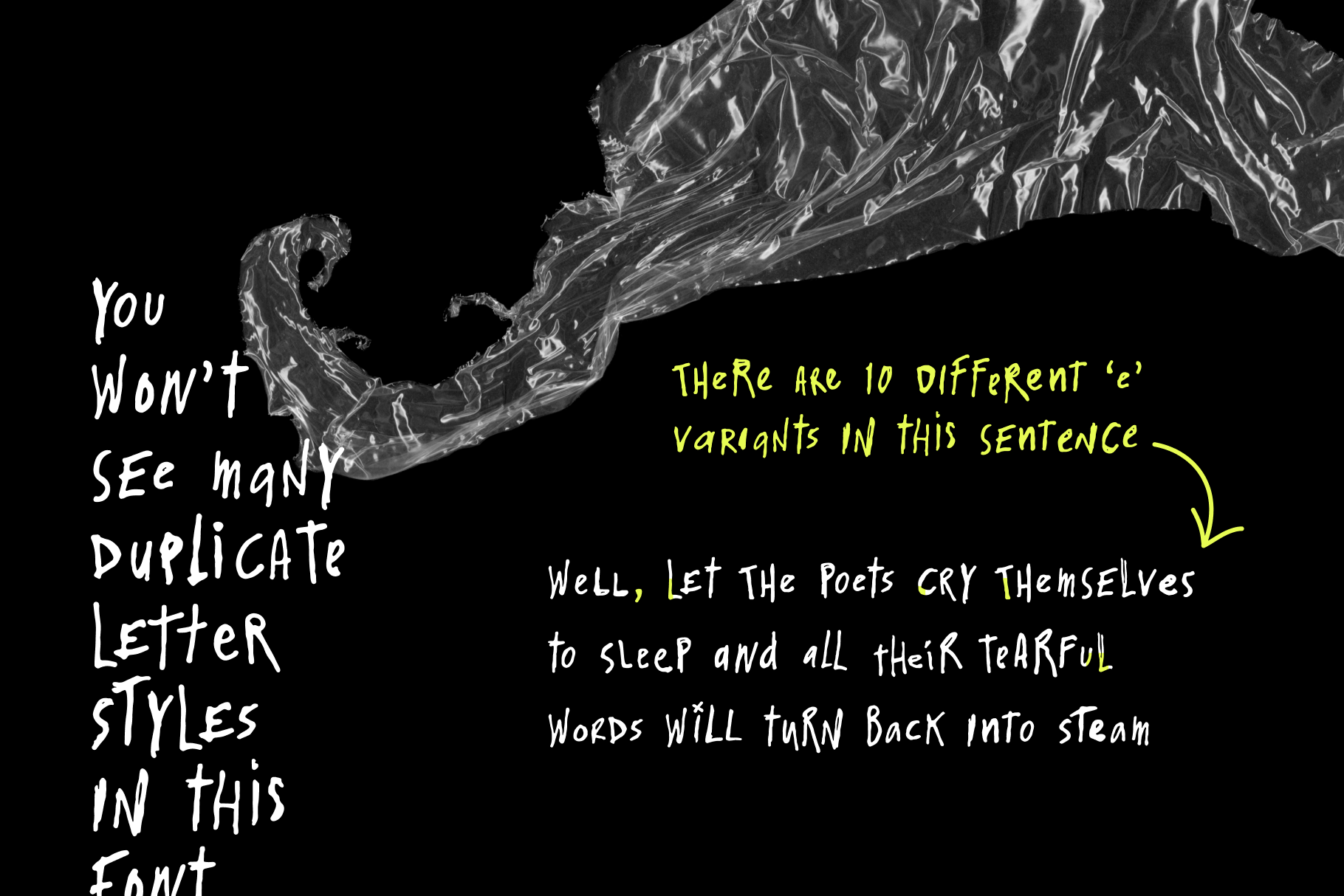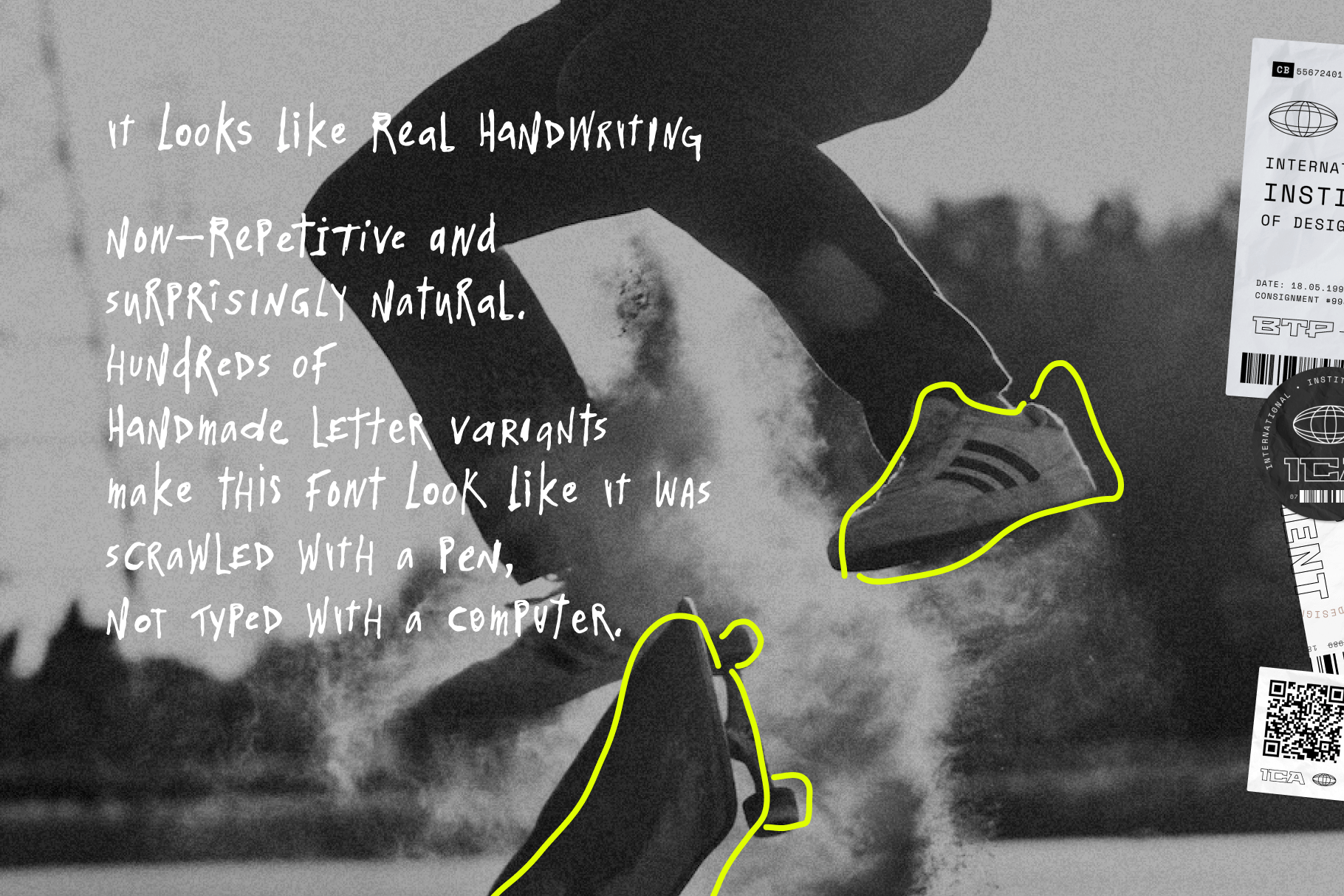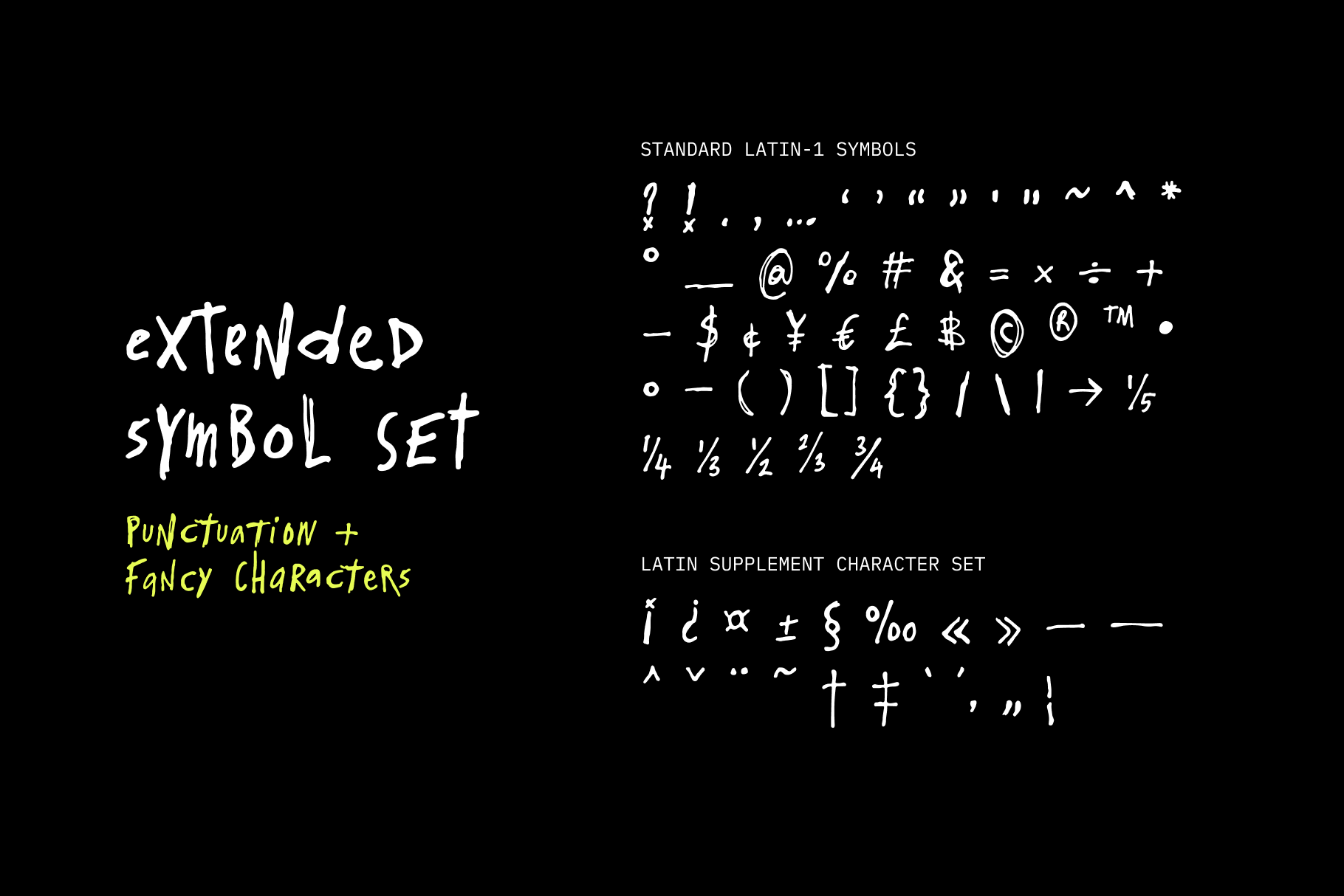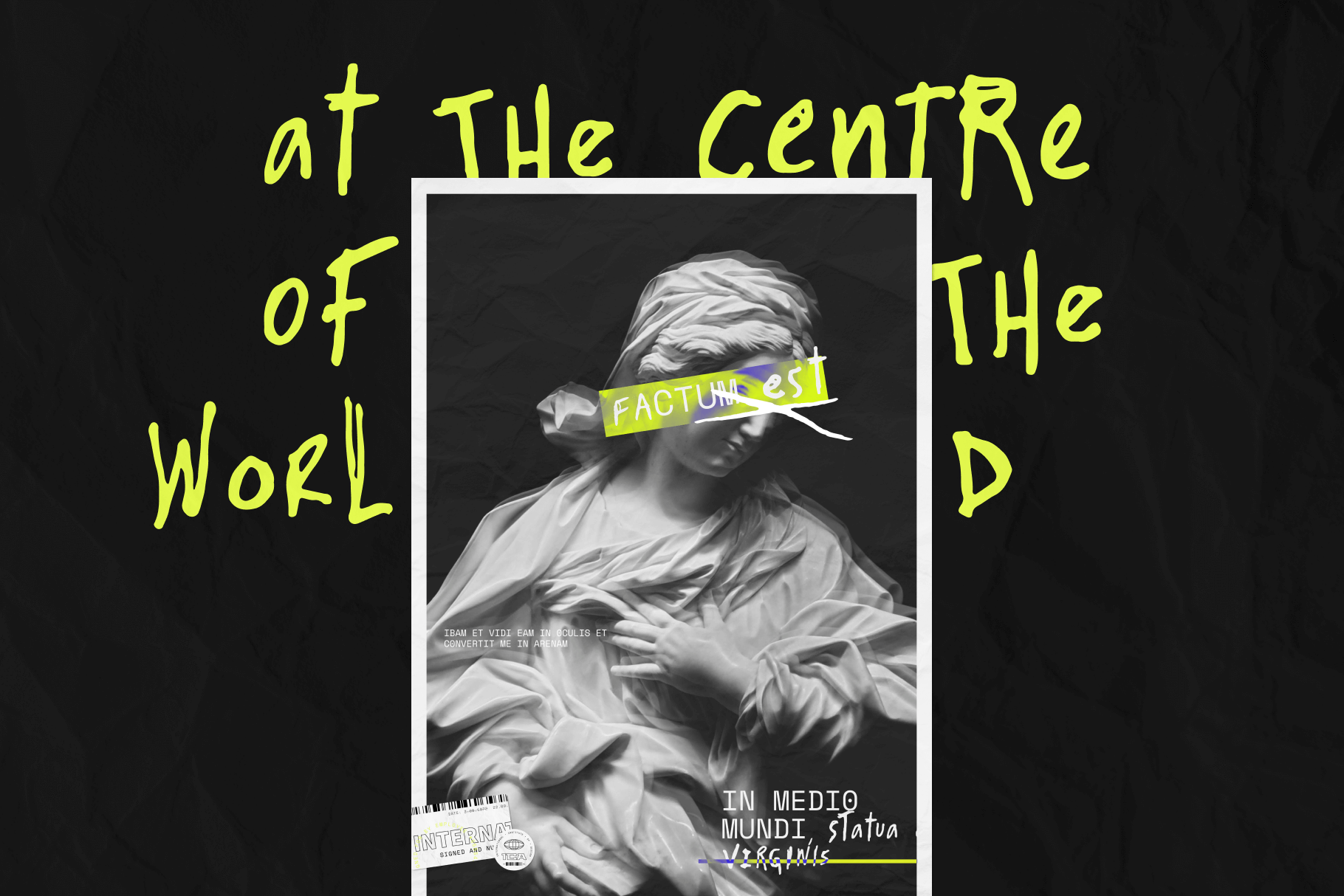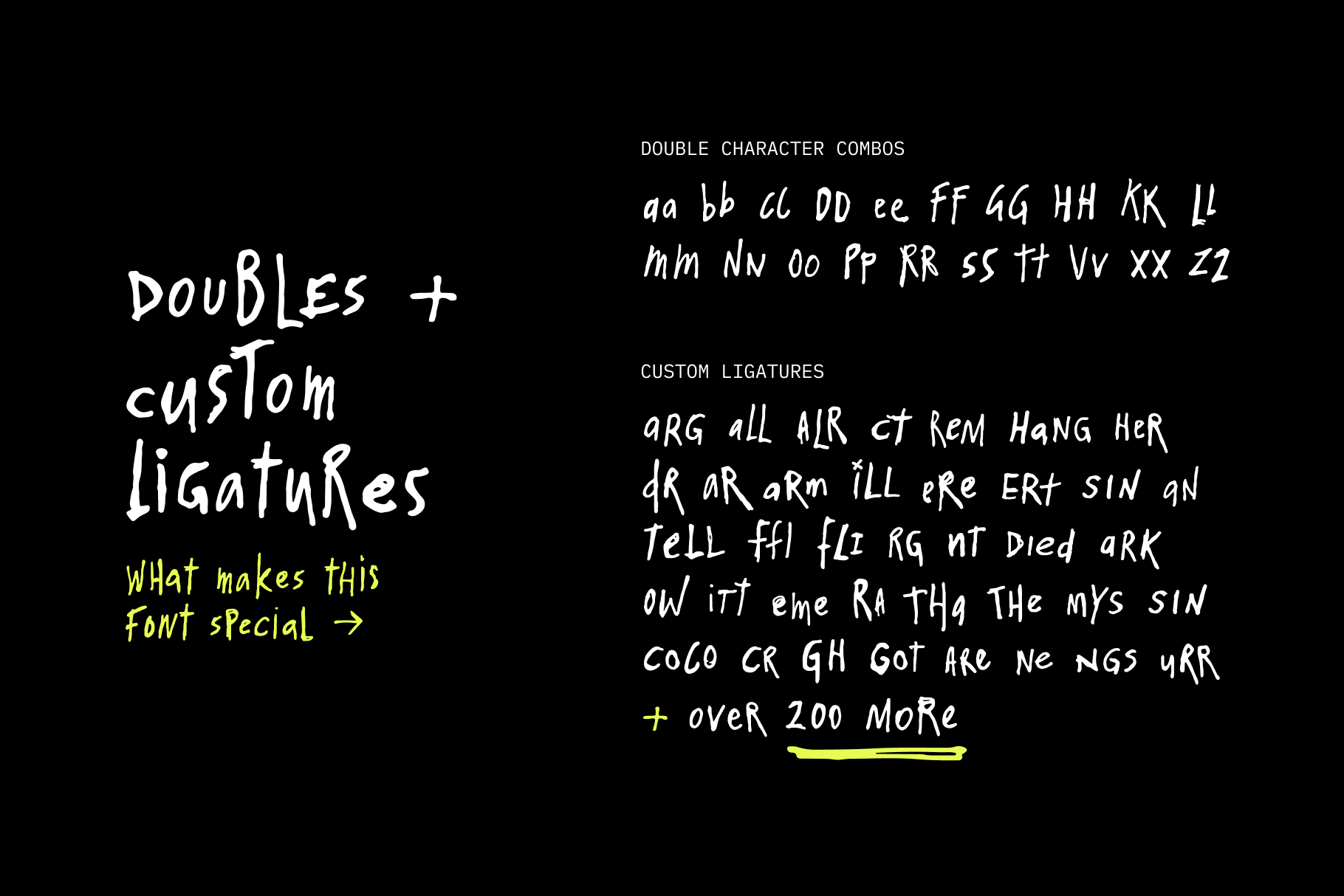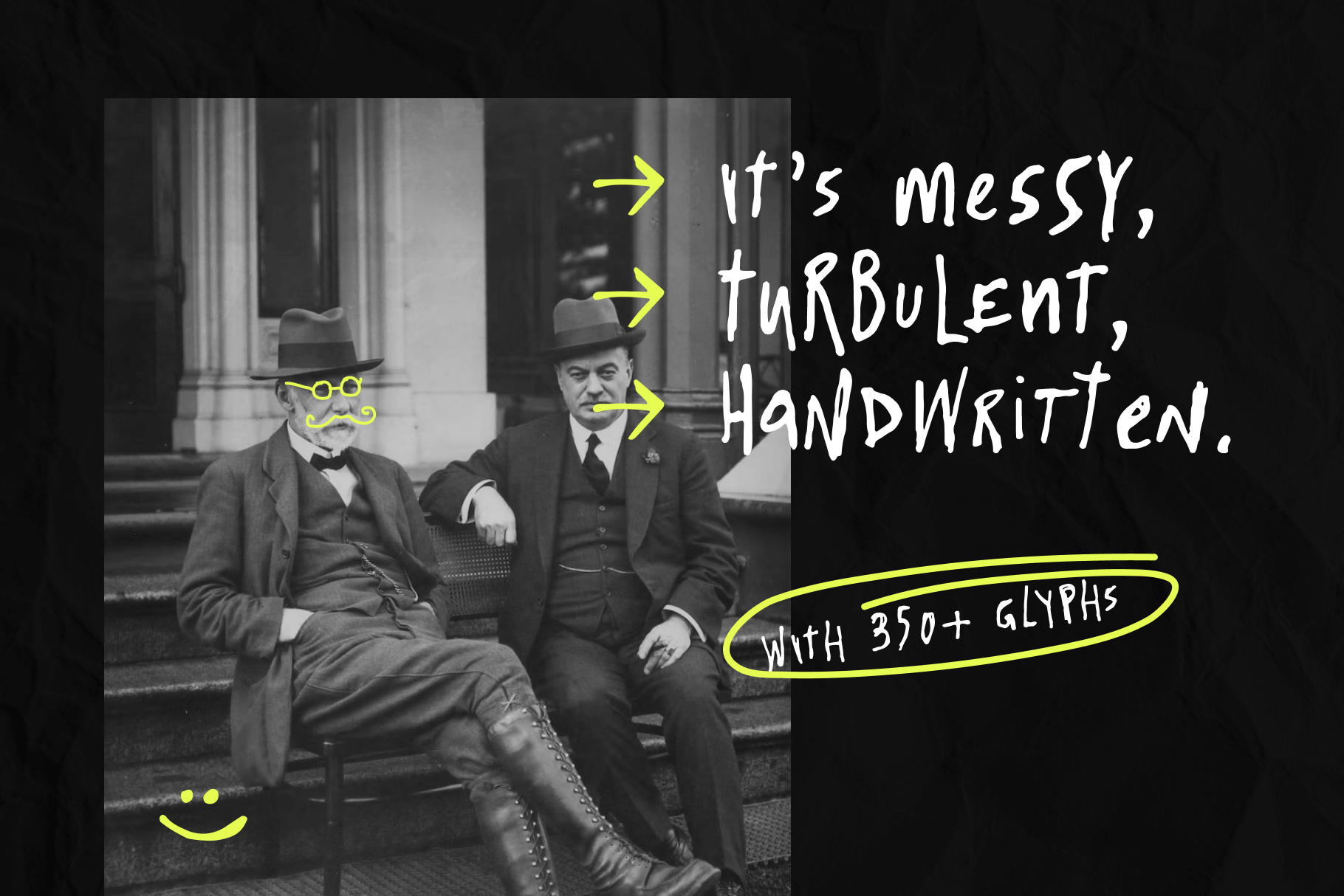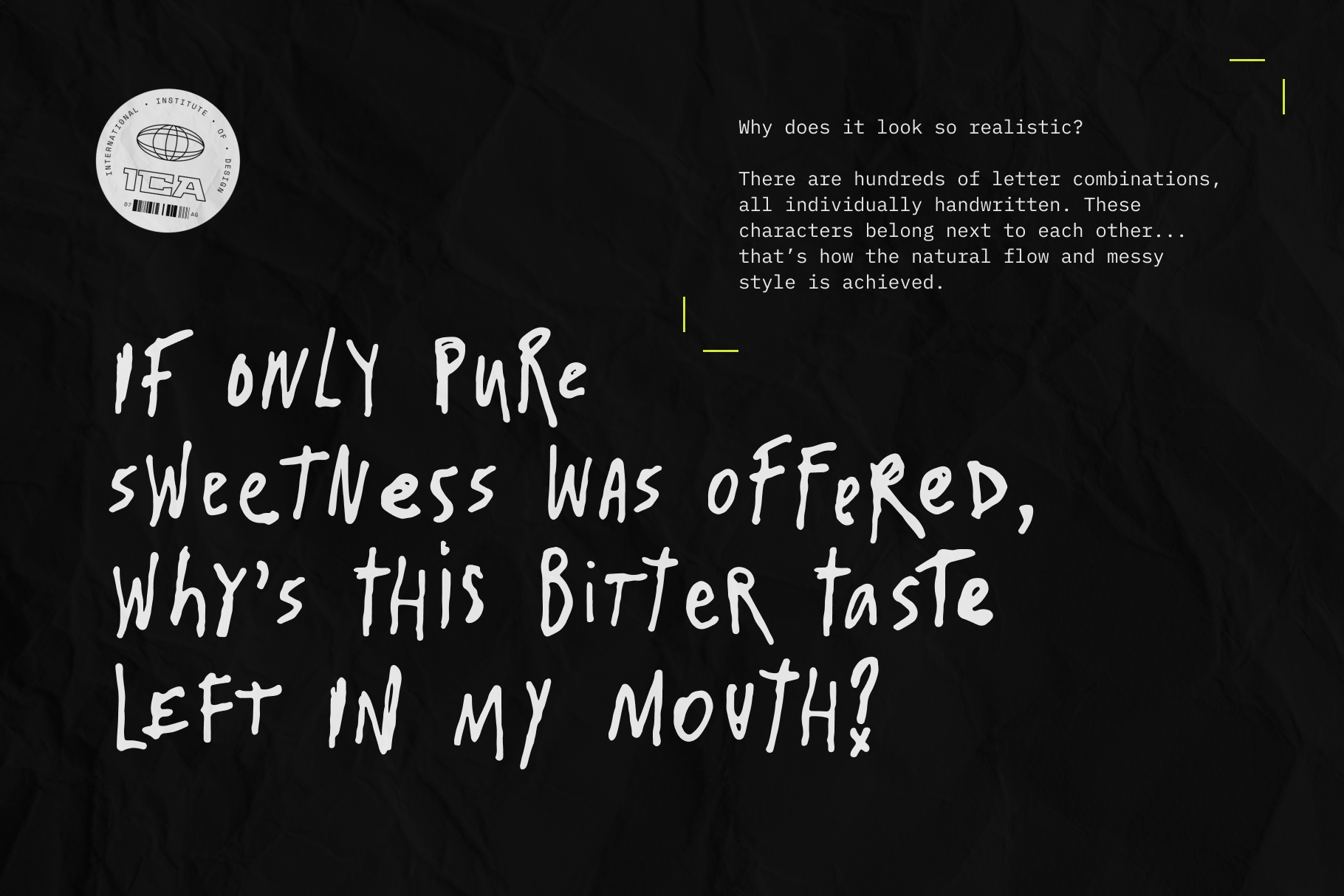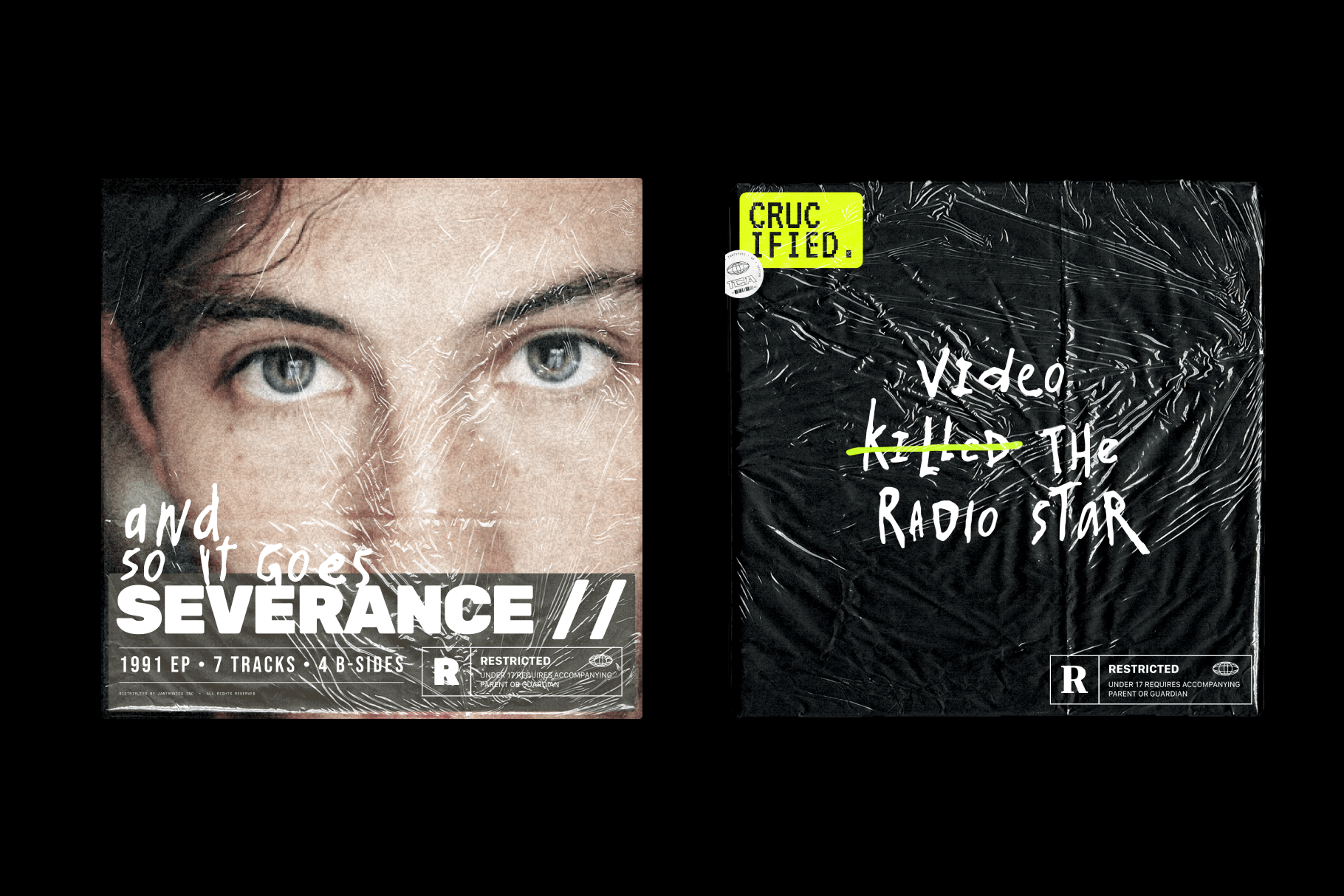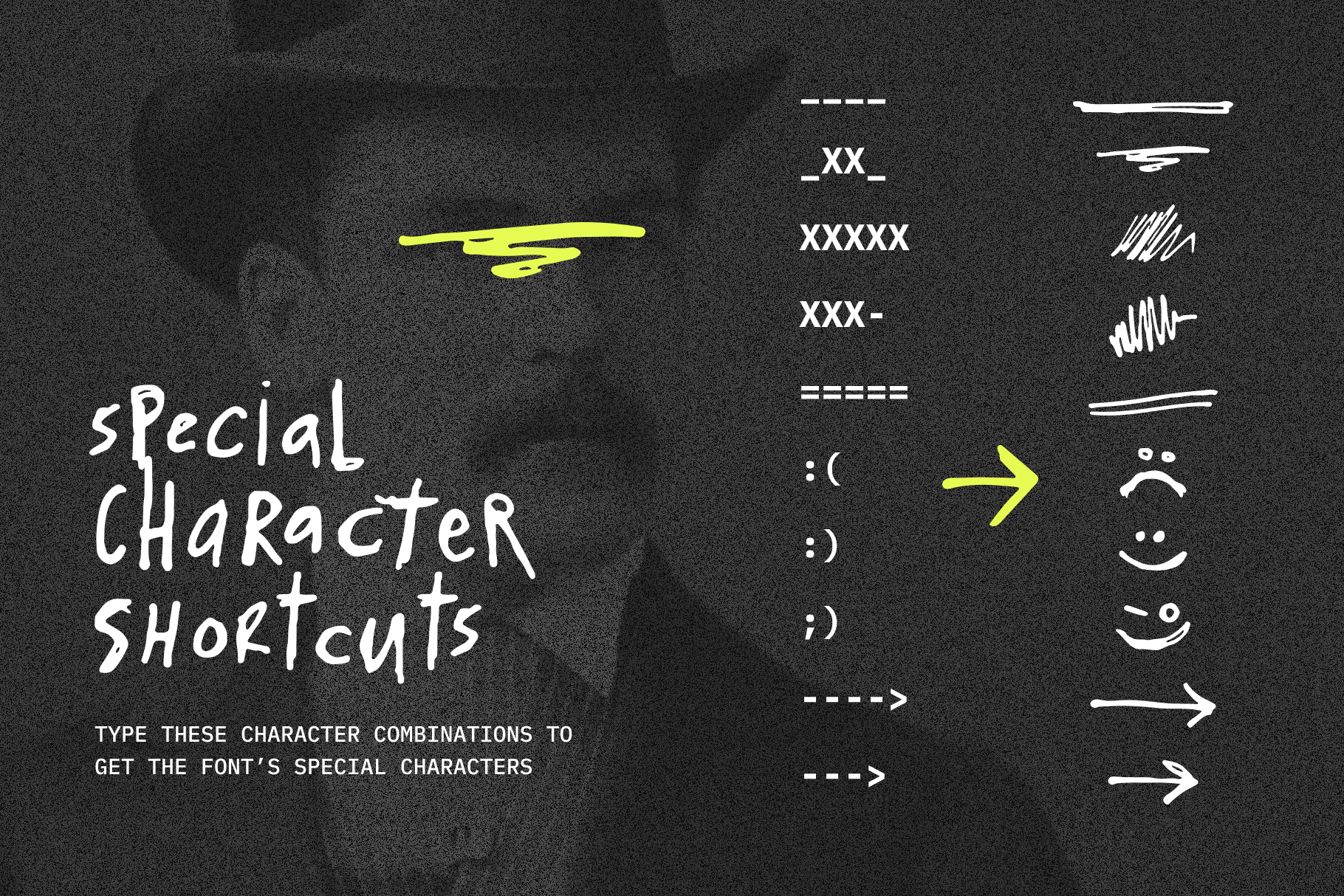
Wasted Year is a wonderfully wild messy handwriting font. What makes this font special is the erratic switch between uppercase and lowercase letters.
Wasted Year has no set uppercase or lowercase; it changes based on the letter combinations you enter so you never quite know what you’re going to get 😎 Try it out yourself.
Wasted Year is a messy and turbulent handwriting font. Featuring over 350 characters and erratic custom ligatures, it looks just like it was scrawled with a pen… not typed with a computer.
You can also access special glyphs (such as scribbles and smileys) via keyboard shortcuts.